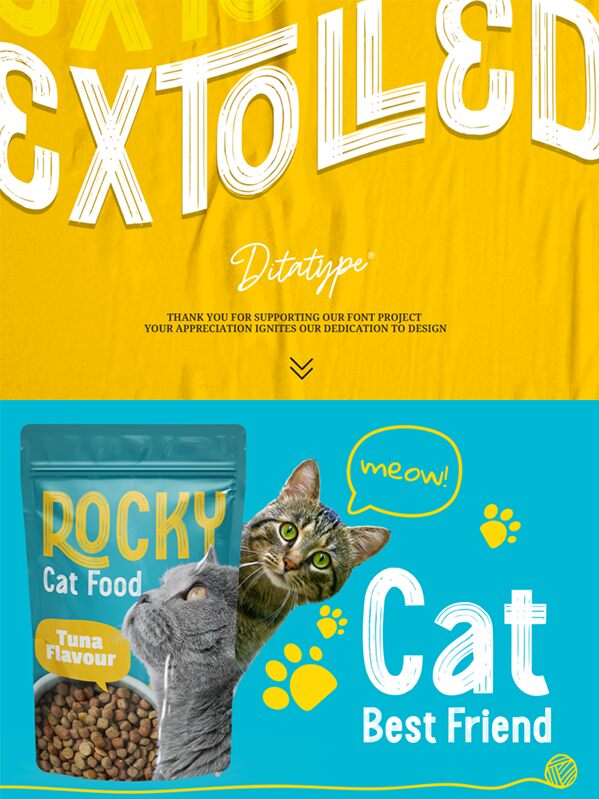
Extolled font is a free brush font by Ditatype condensed into dense characters that contain patterned interior lines. Extensively geometric in its structure, the appearance of Extolled brings to mind an industrial impression influenced by retro affections. Try out this unique typeface for posters, flyers, website headers, and social media covers among many more design projects.
Extolled was built for fashionable branding and logo design, which can both be fixed on clothes or accessories. Use it for product packaging or business cards to present your professional identity or establish your shop with its signage applications. This effective font can also be an excellent addition to magazines and book covers!